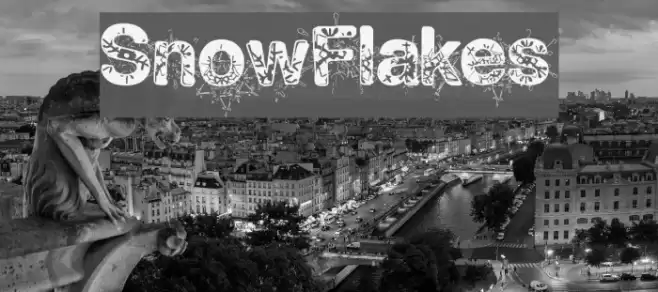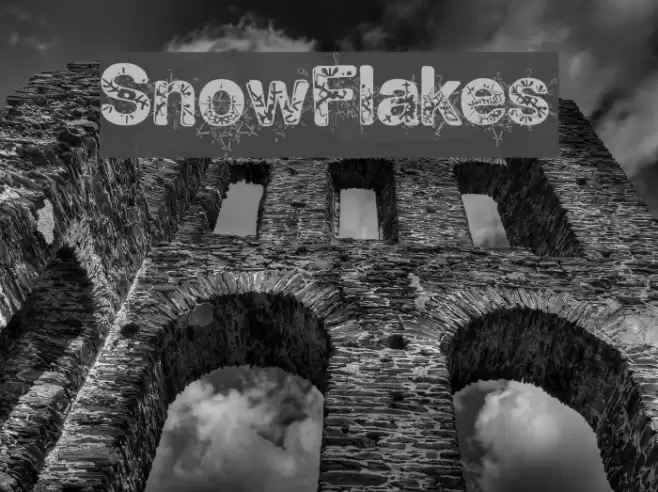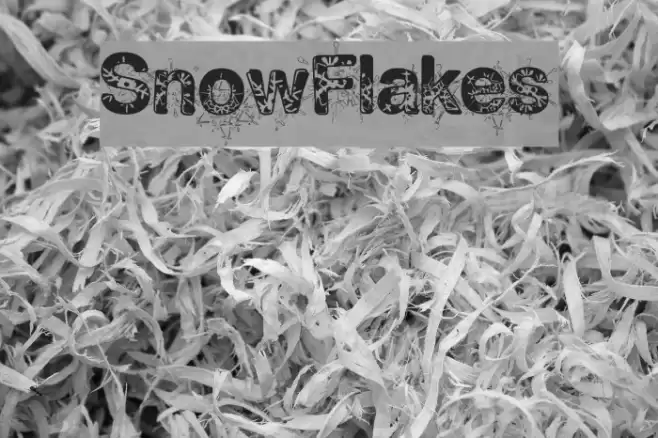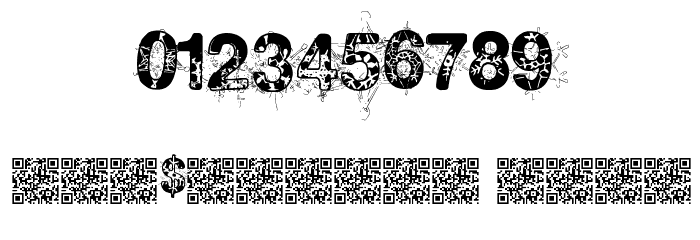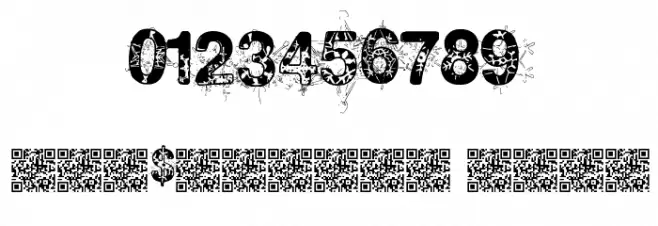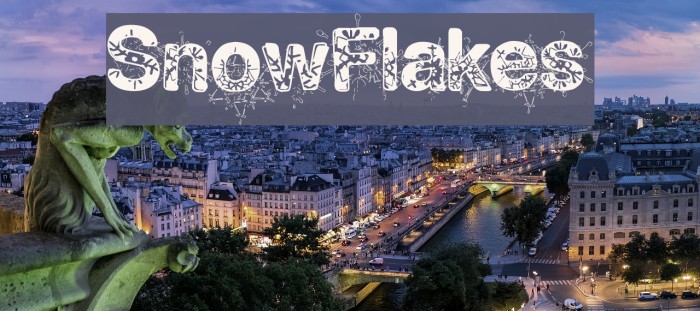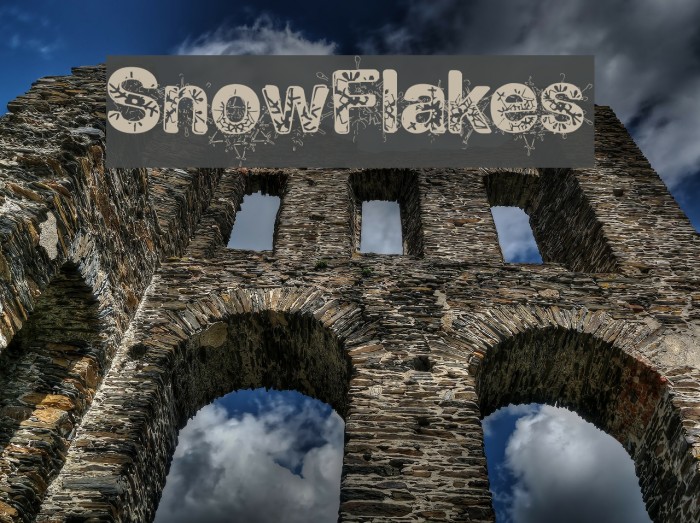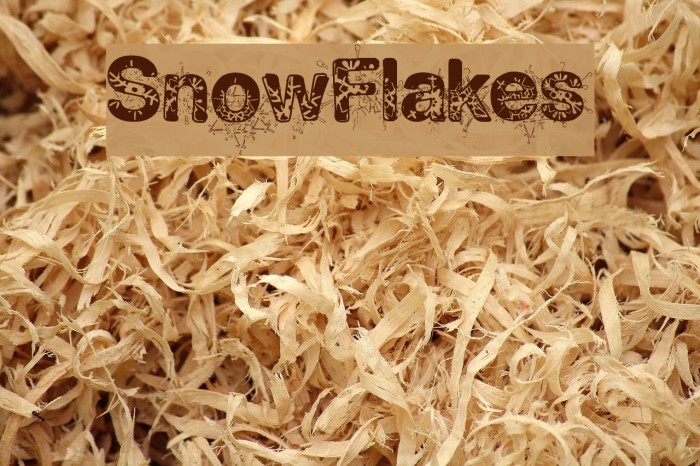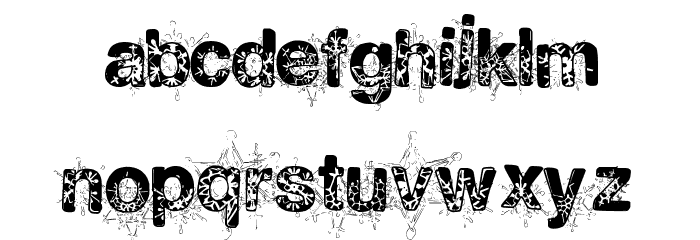
SnowFlakes Font
SnowFlakes Description
This font features a unique and decorative style, incorporating intricate snowflake patterns within each character. The bold, uppercase and lowercase letters are filled with detailed snowflake designs, creating a striking visual effect. The numbers and special characters also follow this theme, making the font highly thematic and suitable for winter or holiday-related projects. The overall design is eye-catching and artistic, with a strong emphasis on decorative elements. The contrast between the thick, bold outlines and the delicate snowflake details adds depth and interest to the font.
A decorative font with intricate snowflake patterns within bold characters from Uncategorized fonts.